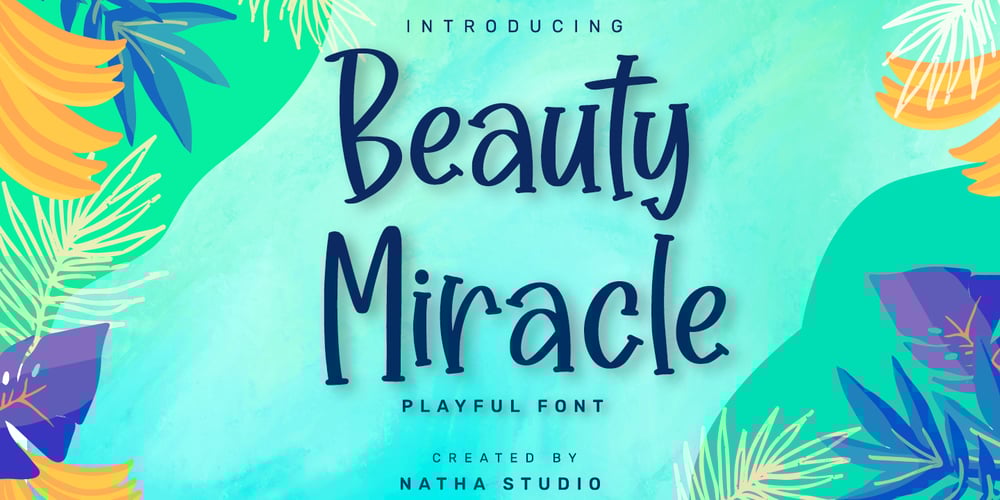
Beauty Miracle Font Family was designed by Donis Miftahudin and published by Nathatype. Beauty Miracle contains 1 styles and family package options. Beauty Miracle is a beautiful handwritten font. It brings an attractive typeface. Made for any professional projects. The font is suitable for any project like logo, t-shirt printing, wedding invitations, and greeting cards to social media quotes, branding, and more! Outstanding in a wide range of contexts. Featured :- Standard Ligatures- Stylistic Sets- Multilingual Support- PUA Encoded- Numerals and Punctuation